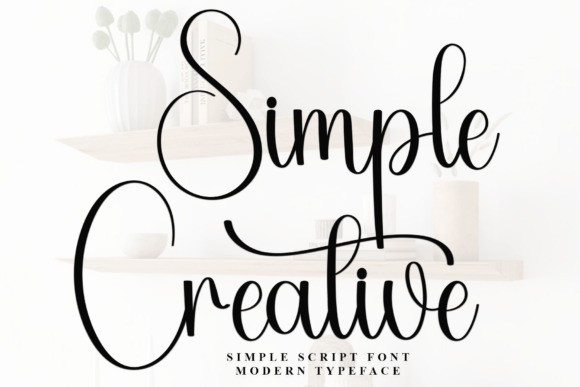
Simple Creative Typeface
Simple Creative Typeface, is a lovely and timeless handwritten font. It is the best choice for creating eye catching logos, branding and quotes. Every letter has a unique and beautiful touch, which will make your design come alive!